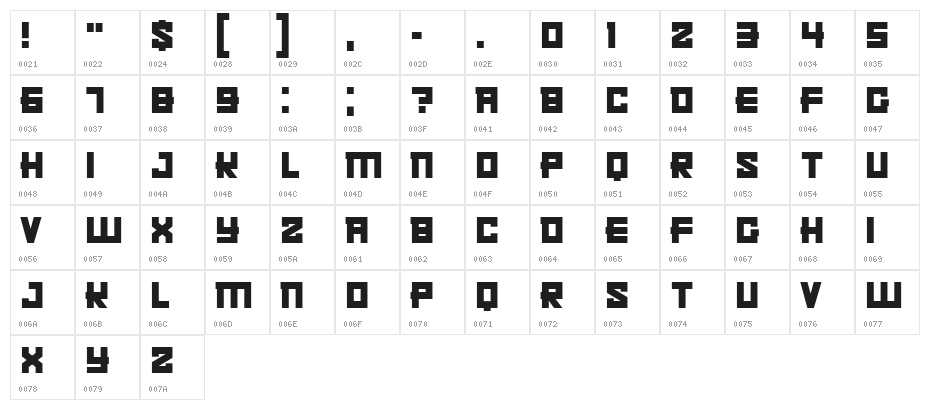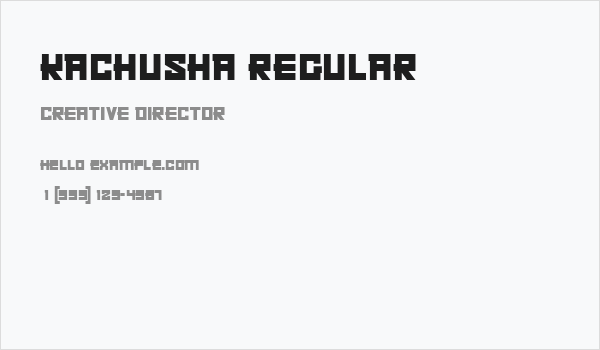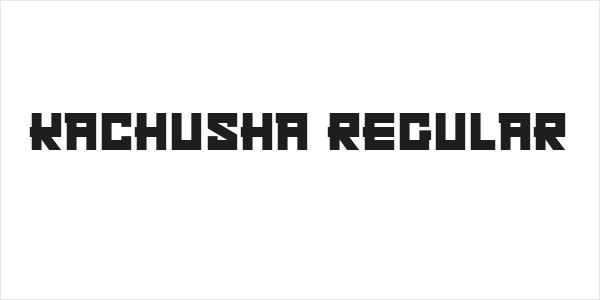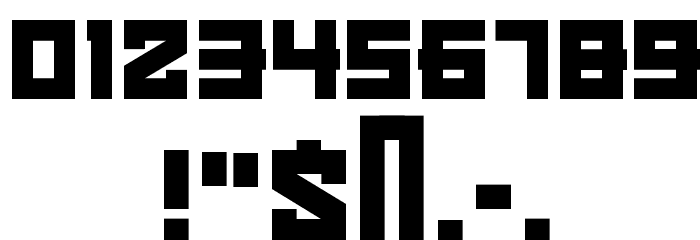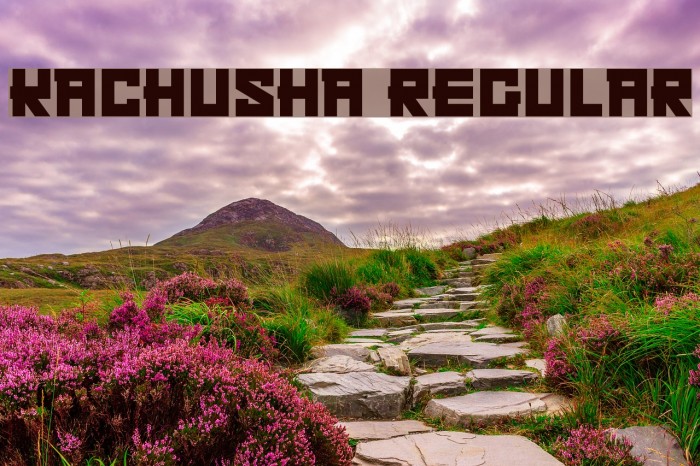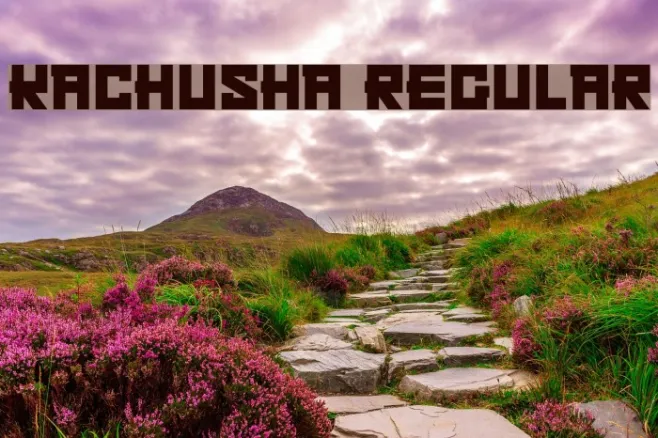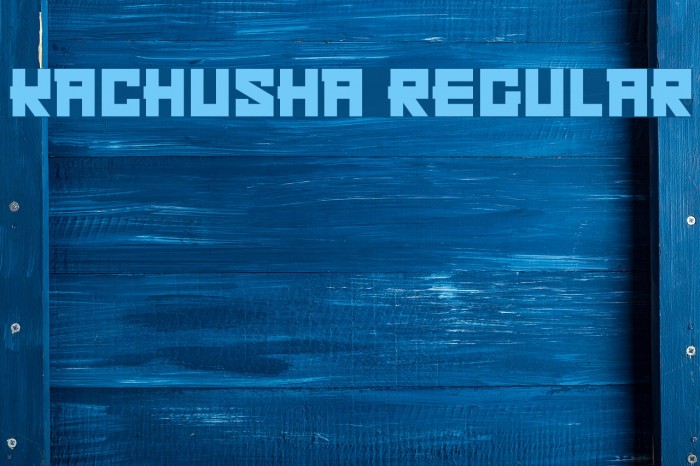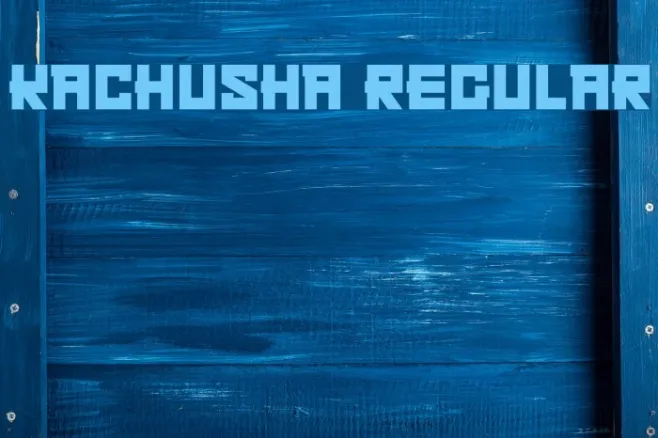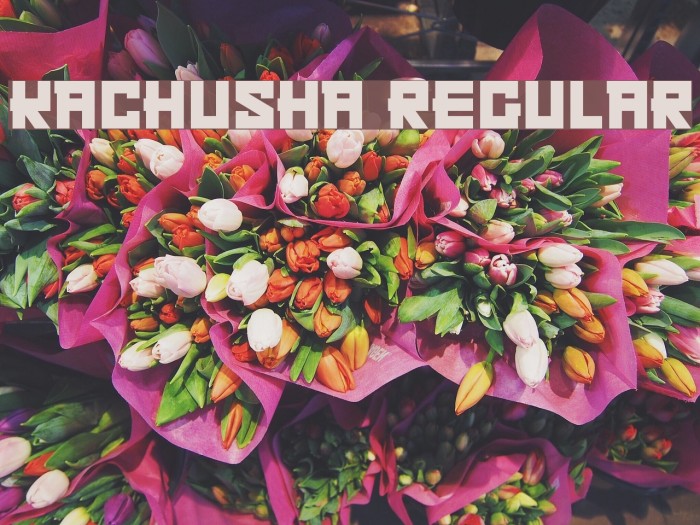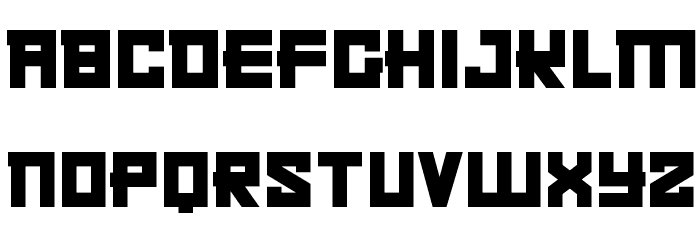
Kachusha Regular Font
Kachusha Regular Description
This font features a bold, geometric design with a strong presence. Each character is constructed with thick, block-like strokes that convey a sense of strength and stability. The angular edges and uniform stroke width give it a modern, industrial feel. The uppercase letters are particularly striking, with a consistent height and width that create a cohesive look. The numerals and special characters maintain the same bold style, ensuring a uniform appearance across all text. This font's design is both eye-catching and functional, making it suitable for a variety of applications.
| Proposed Projects | Ideal for branding, posters, headlines, and any project requiring a strong visual impact. |